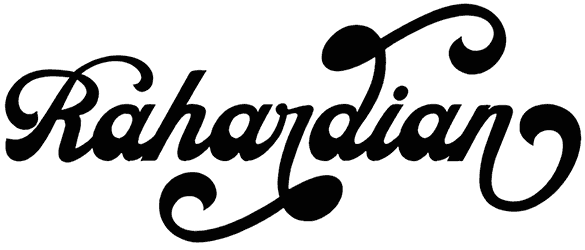
Rahardian Font
Rahardian is a retro-style, old-school font that is adventurous. It looks stylish, especially with its old-fashioned design! It offers bold, groovy characters, plus unique swashes, and it gives you very interesting, cursive handwritten typography with a funky feel.
Apart from all the letterforms provided, it does not contain a set of numbers. You can use Rahardian in retro gaming, book covers, headlines, banners, logos, and wherever you wish for an attractive vintage baseball font!